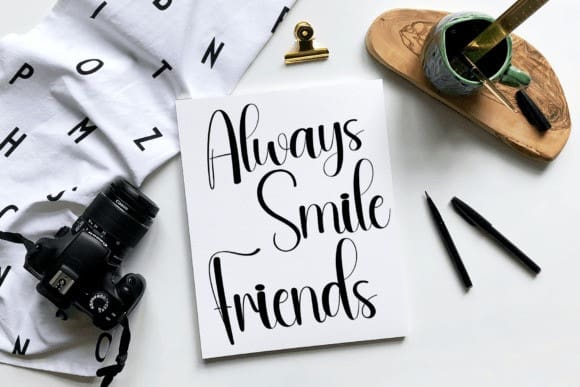
Belliana Lovely Font
Belliana Lovely Font is a sweet and friendly handwritten font. Fresh and neat, this font is ideal for writing wedding invitations, cards, or any other design that might need a fun touch!